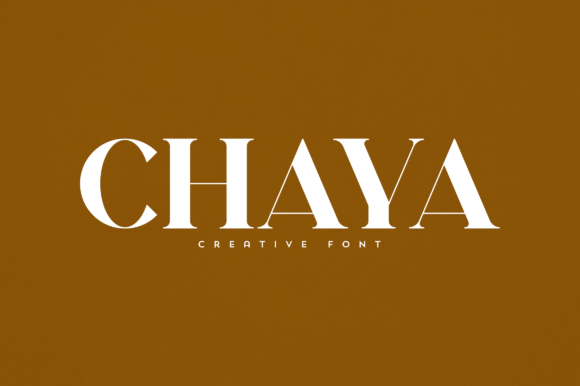
The Perfect Typography Companion: Unveiling Chaya Font
Remember that moment when you stumbled upon the perfect font, and your design instantly came to life? For designers, this is a moment of pure bliss, and I’m about to share with you a secret that will make your typography truly unique.
Meet Chaya Font, an elegant and versatile font that will elevate your branding, home-ware designs, product packaging, and magazine headers to the next level. Whether you’re a seasoned designer or just starting out, Chaya Font is the perfect addition to your toolkit. Its unique charm will captivate your audience, and its flexibility will make it a valuable asset in your creative arsenal.
Key Features of Chaya Font
- Unique Characteristics: Chaya Font features a unique blend of modern and traditional elements, with intricate details and subtle nuances that set it apart from other fonts in its class.
Designer Review: Chaya Font
Overall, I have mixed feelings about the Chaya Font. While it has some nice qualities, it also has some limitations that make it less appealing.
- The Chaya Font has a unique and elegant design that is perfect for formal or upscale branding.
- The font is highly legible, even at small sizes, making it great for body text or signage.
- The font family includes a wide range of weights and styles, making it versatile for different design applications.
- The font is quite ornate and may not be suitable for designs that require a more modern or minimalist look.
- The font’s high contrast between thick and thin lines may make it difficult to read for people with visual impairments.
- The font may not be optimized for digital use, resulting in a slightly pixelated appearance at certain sizes.
While the Chaya Font has some nice qualities, its limitations make it less appealing for everyday use. However, it may still be a great choice for specific design projects that require a unique and elegant look.
Tips for Getting the Most Out of Chaya Font
Chaya Font is a versatile and elegant font that can be used in a variety of designs. To get the most out of it, try the following:
- Pair Chaya Font with bold fonts for contrast and emphasis.
- Use Chaya Font in combination with other elegant fonts for a sophisticated look.
- Experiment with different font sizes and colors to create a unique design.
Chaya Font is commonly used in:
- Use the Chaya Font for headings and subheadings to add a touch of elegance and sophistication.
- Pair the Chaya Font with a clean sans-serif font for body text to create contrast and visual interest.
- Experiment with different font sizes and weights to emphasize key information and create visual hierarchy.
- Use watercolor textures and illustrations to create a dreamy, ethereal atmosphere.
- Pair the Chaya Font with a bold, colorful color scheme to create a vibrant and eye-catching design.
- Use white space effectively to create a sense of breathability and visual balance.
- Use the Chaya Font as the primary typography element for the invitation’s main text.
Exploring the Chaya Font
A travel brochure that showcases the beauty of exotic destinations, featuring the Chaya Font as the primary typography element.
A simple and elegant wedding invitation that showcases the beauty of the Chaya Font in a minimalist design.